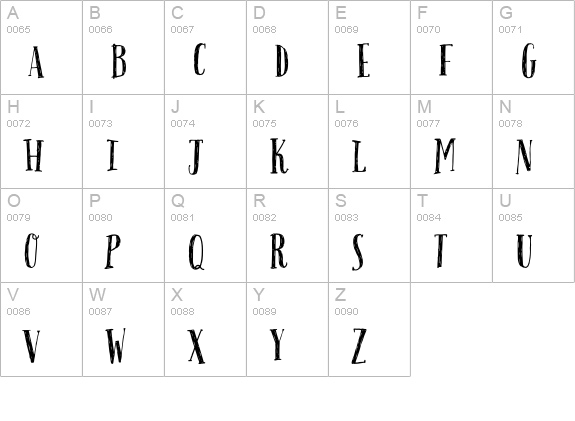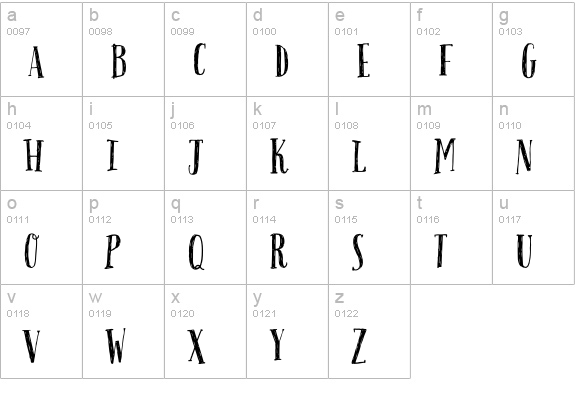
PacificNorthwestRough-NormalMed is a unique and versatile font that captures the rugged beauty and natural charm of the Pacific Northwest region. With its rough edges and slightly distressed appearance, this font exudes a sense of authenticity and character that is perfect for adding a touch of rustic elegance to your designs. Designed with a blend of rough and normal characteristics, PacificNorthwestRough-NormalMed strikes the perfect balance between ruggedness and readability. Its medium weight makes it suitable for a wide range of design applications, from branding and packaging to headlines and posters. Whether you're working on a project inspired by the great outdoors or simply looking to add a touch of rugged sophistication to your designs, PacificNorthwestRough-NormalMed is sure to make a statement. Best of all, this font is available for free download at FontsMarket.com, making it accessible to designers of all skill levels. Embrace the rugged beauty of the Pacific Northwest with PacificNorthwestRough-NormalMed font today!